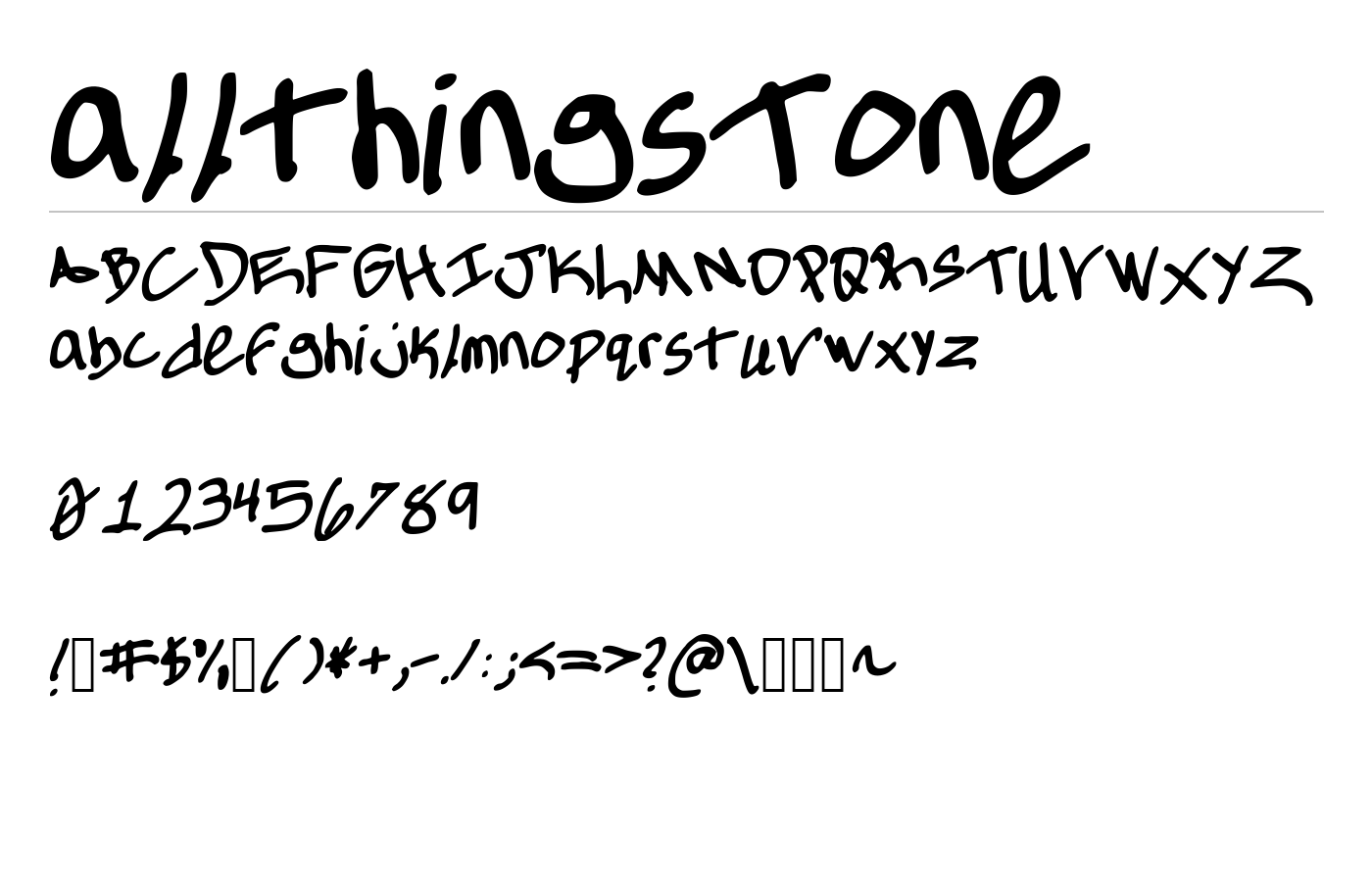
AllthingsTone is a lively handwritten font with a playful and informal vibe, featuring uneven, casual strokes that mimic natural penmanship. Its irregular letterforms and varied character shapes give it a friendly, approachable personality ideal for creative projects, children’s materials, or branding that seeks a personal touch. This font works best in headlines, logos, and packaging where a relaxed, human feel is desired.
allthingsTone Font
About allthingsTone Font